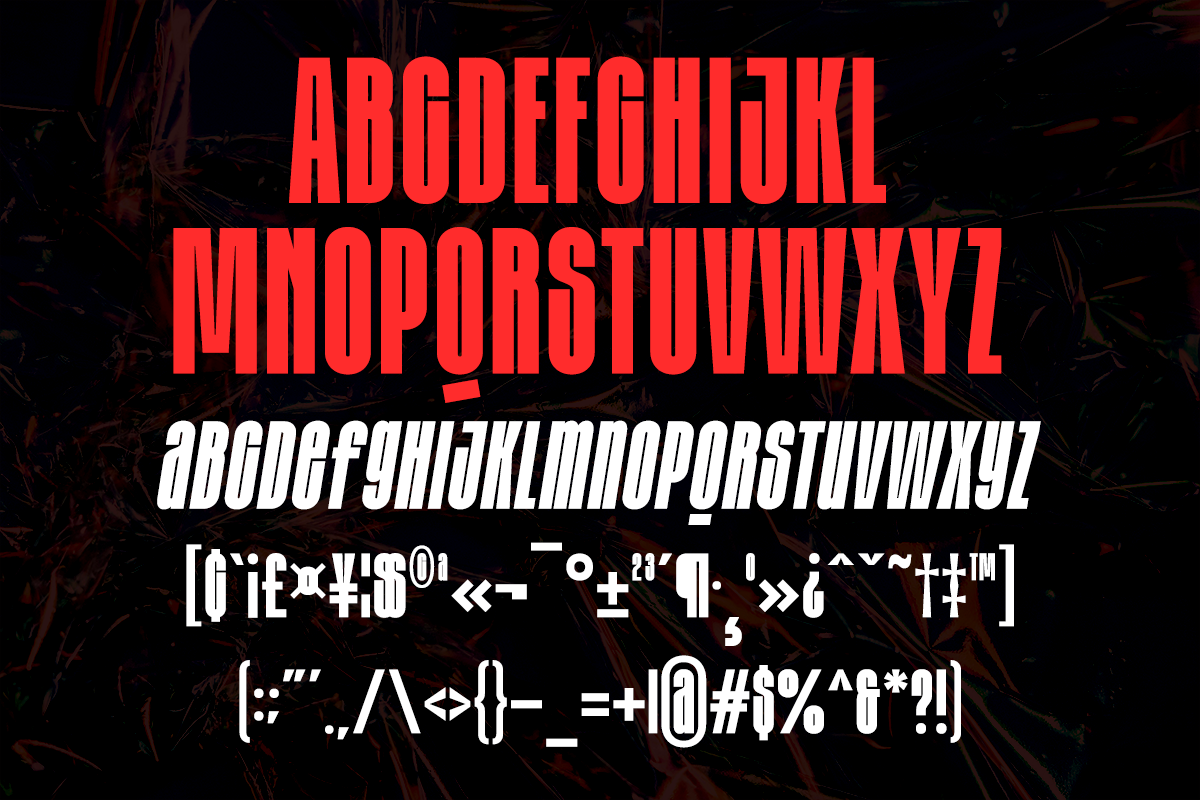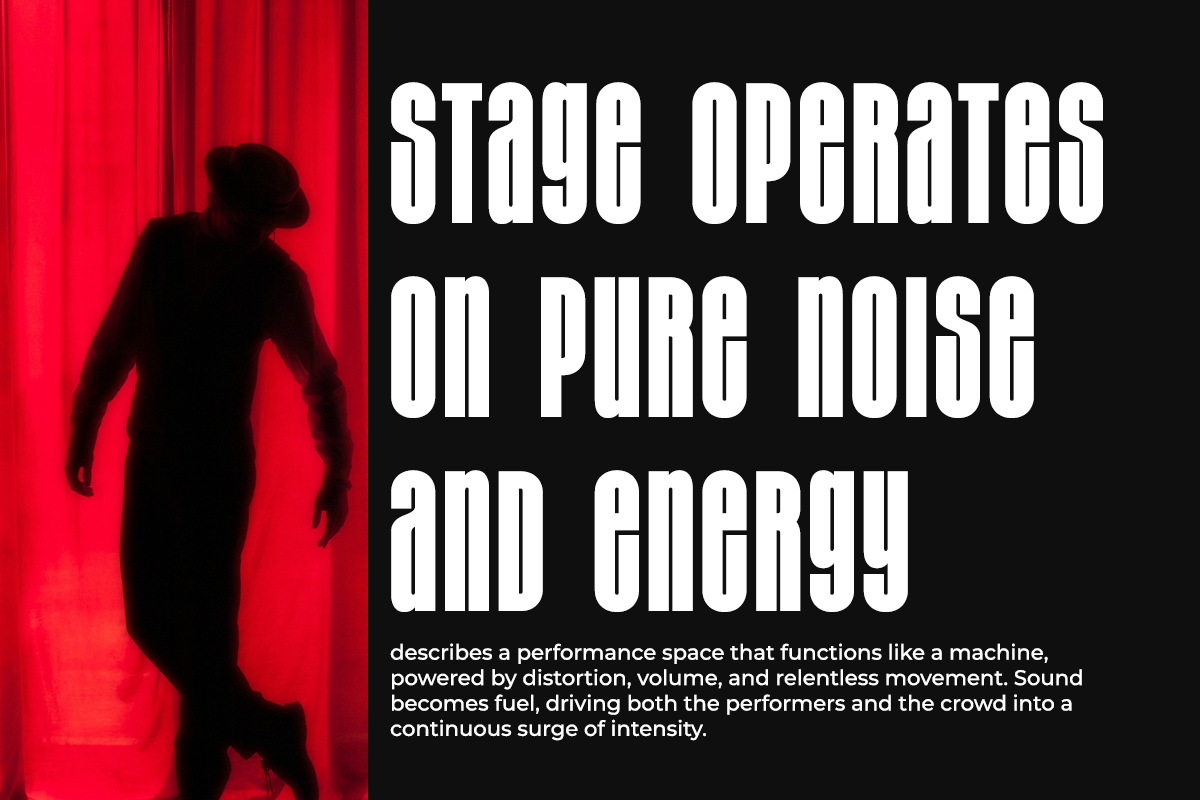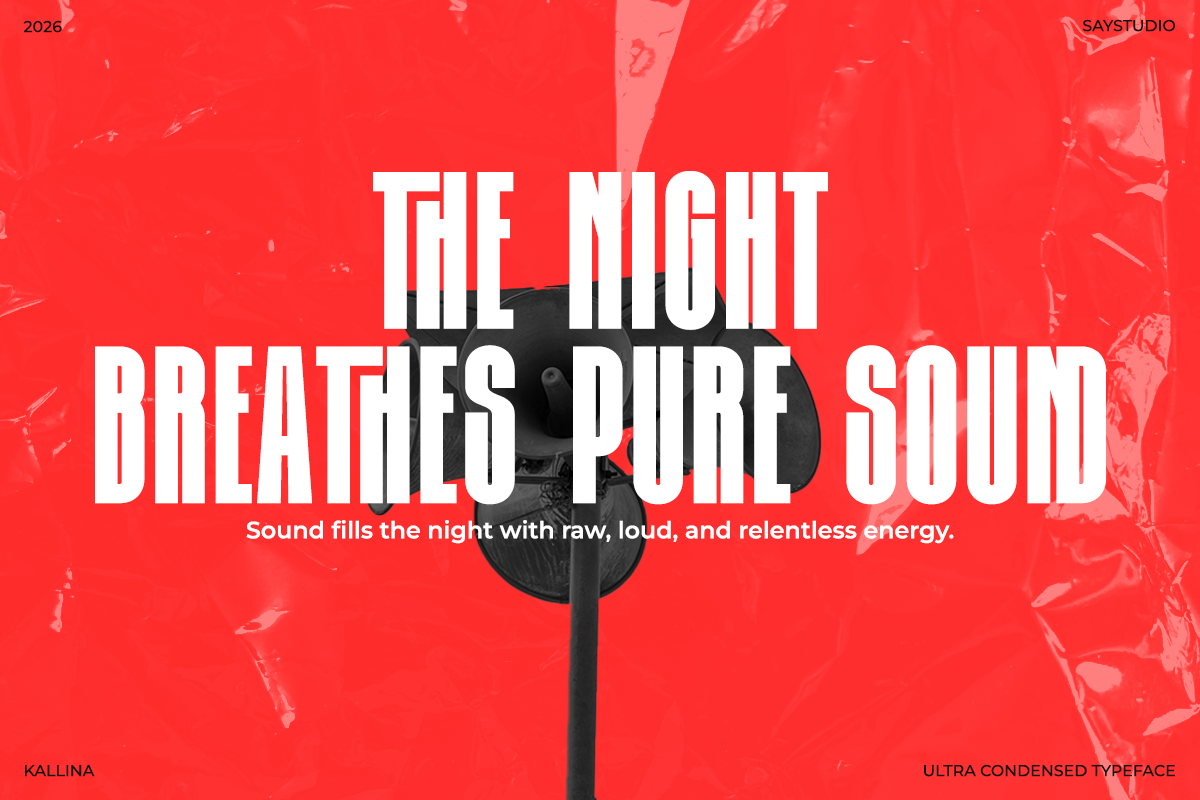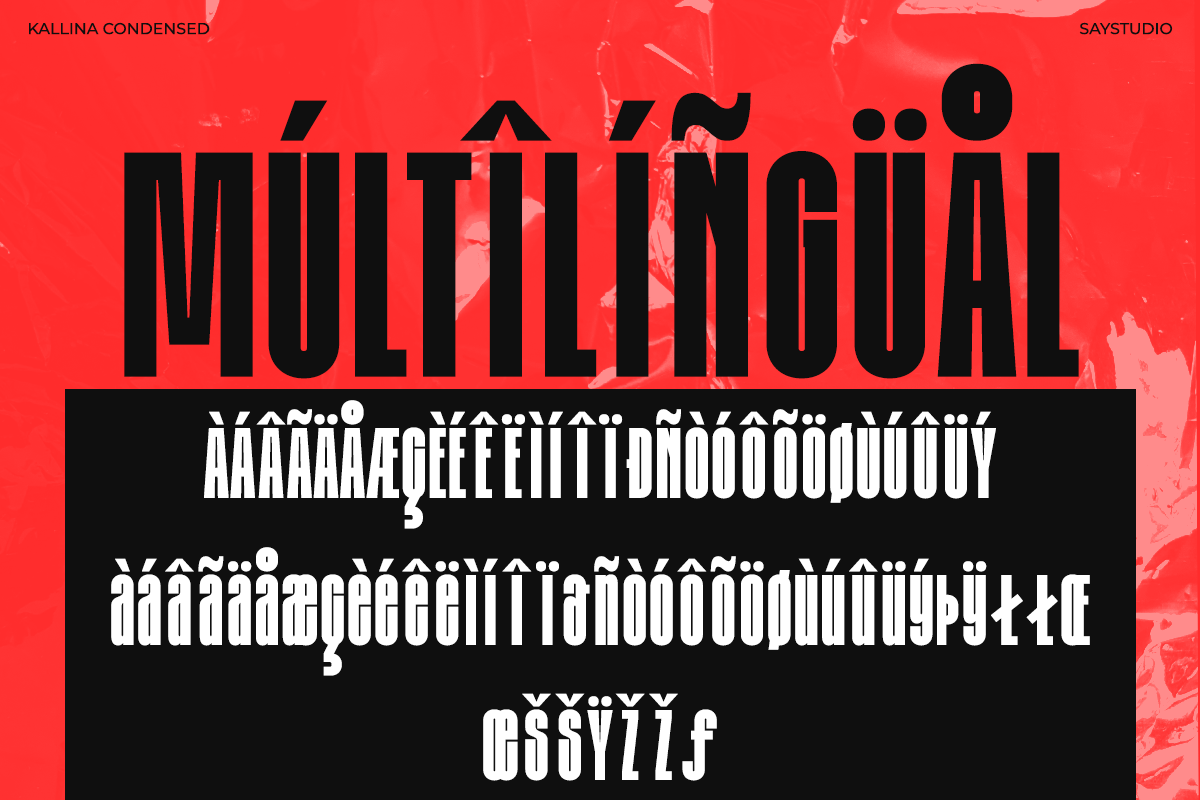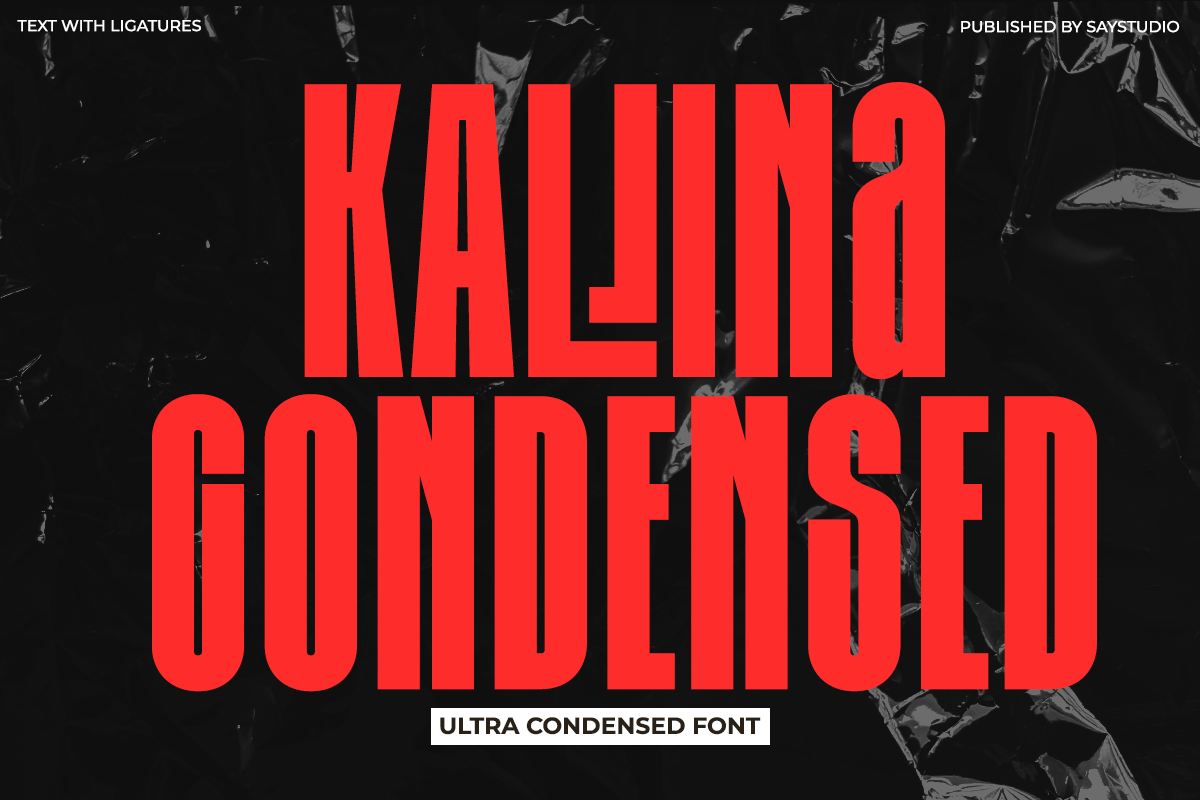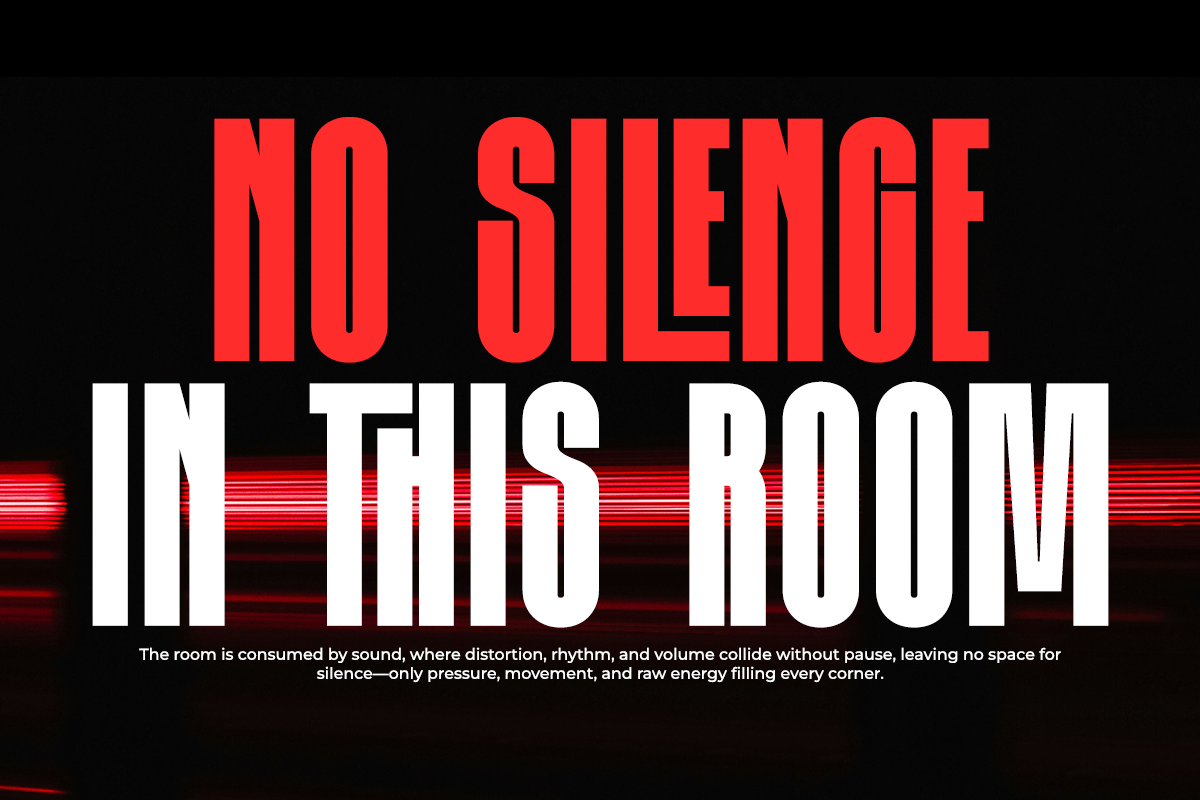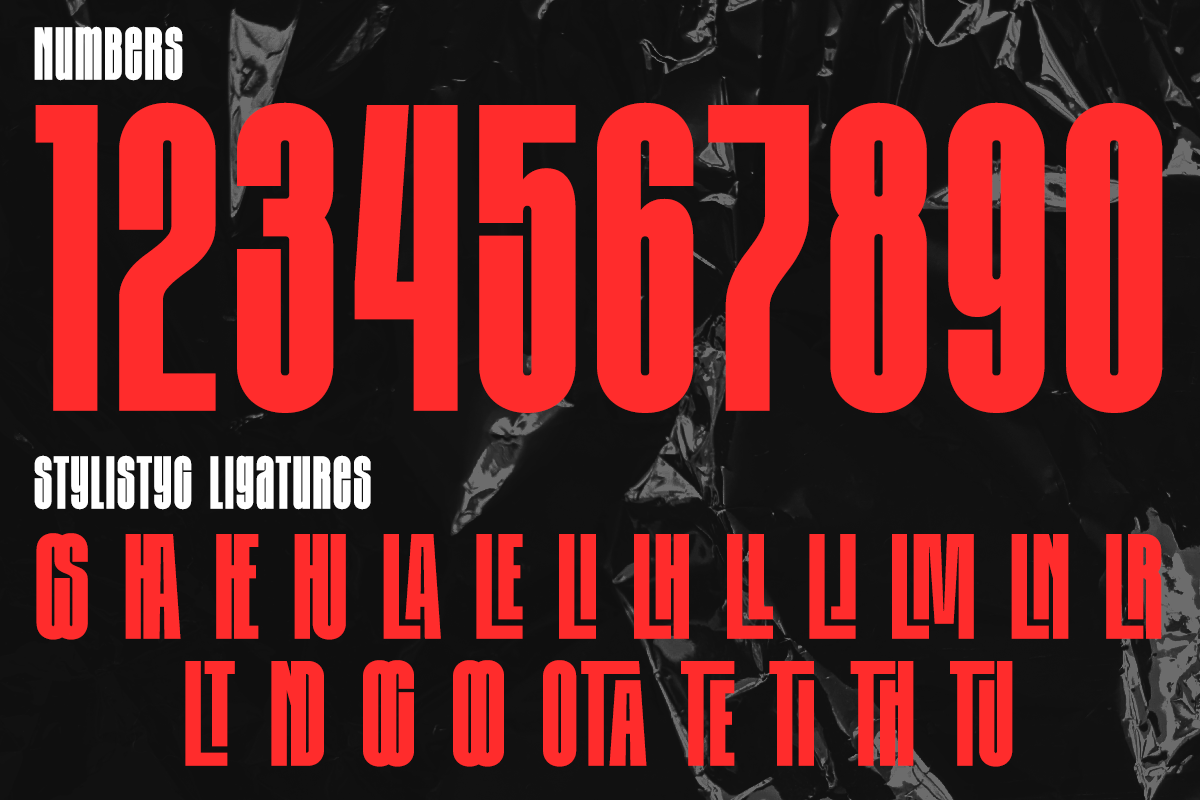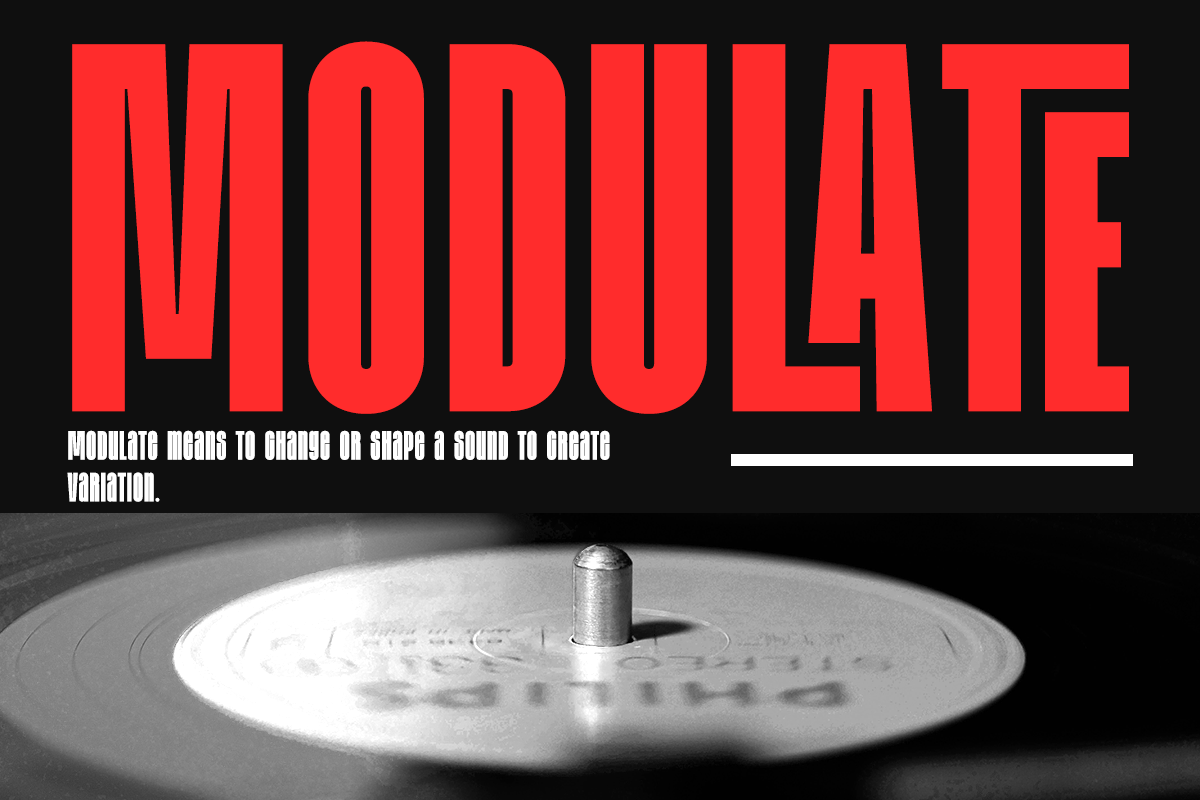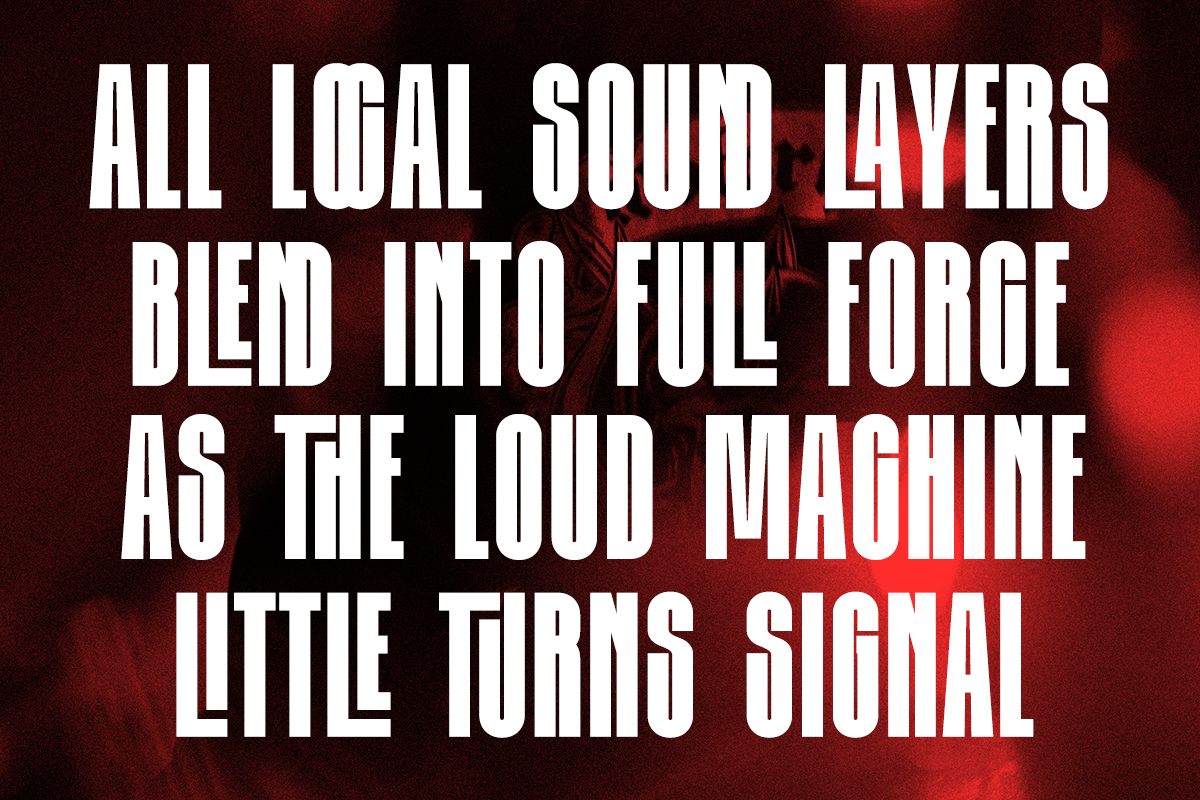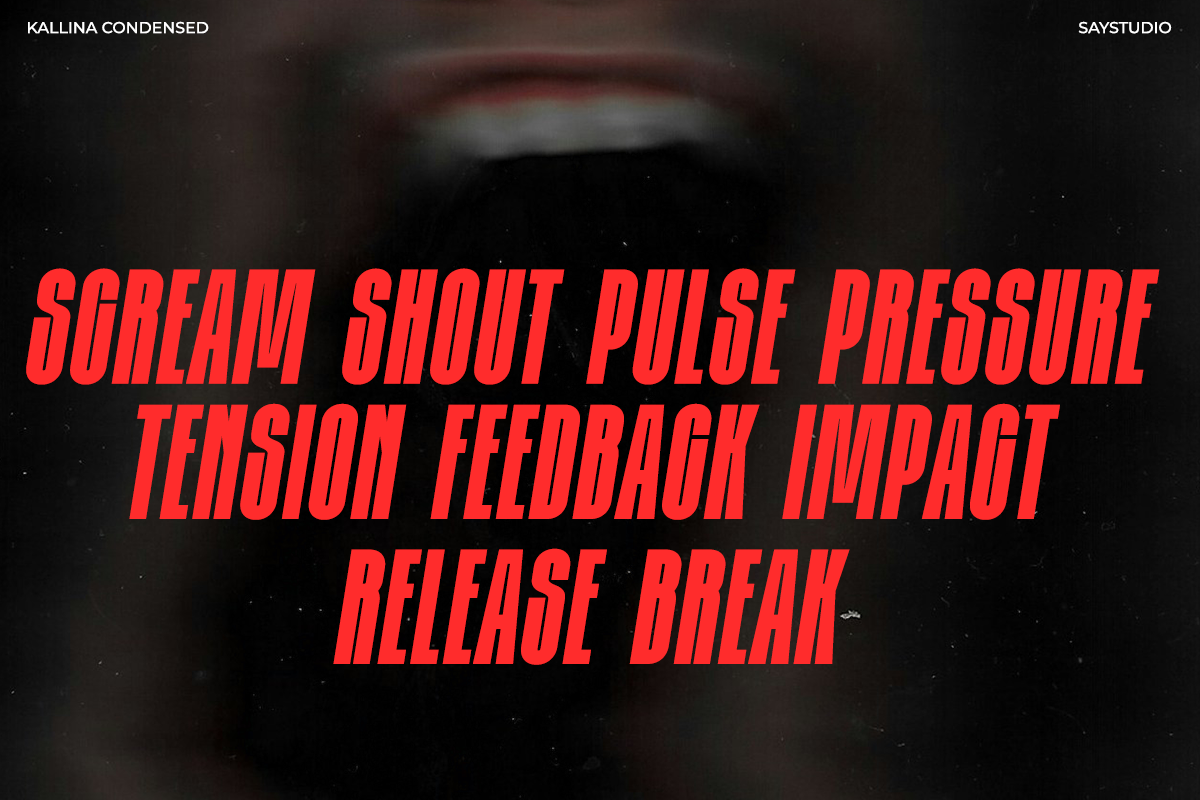
Kalina - Ultra Condensed Font
Kalina Condensed is an ultra-condensed display typeface built to command attention at first glance. With its tall proportions, narrow width, and bold structure, Kalina is designed to maximize impact in limited space while maintaining strong readability and visual authority.
Inspired by modern editorial headlines and striking poster typography, Kalina Condensed delivers a powerful voice for branding, advertising, and statement-driven design. Its clean sans serif construction is sharpened by confident strokes, making it ideal for logos, packaging, campaigns, and bold typographic compositions.
Whether used for posters, headlines, social media graphics, or visual identities, Kalina Condensed brings intensity, clarity, and modern edge. Equipped with ligatures and optimized spacing, this typeface performs beautifully across both digital and print applications where bold presence matters most.